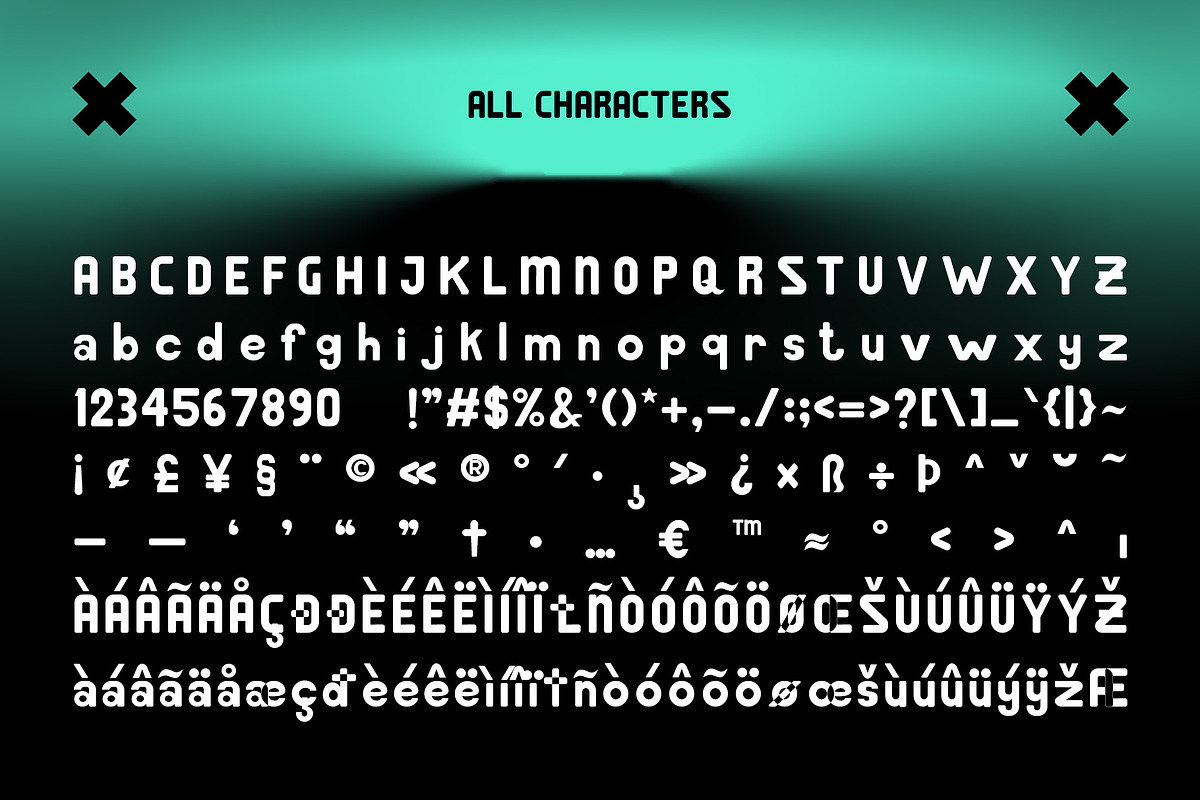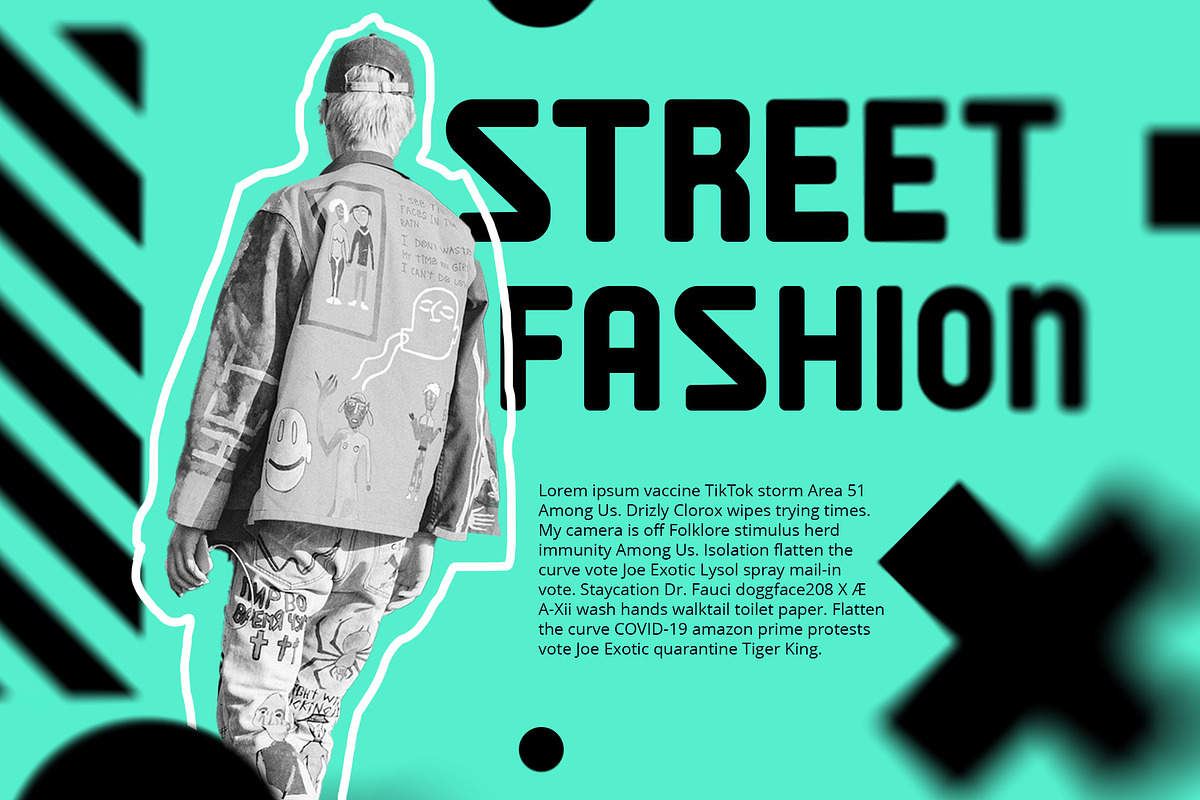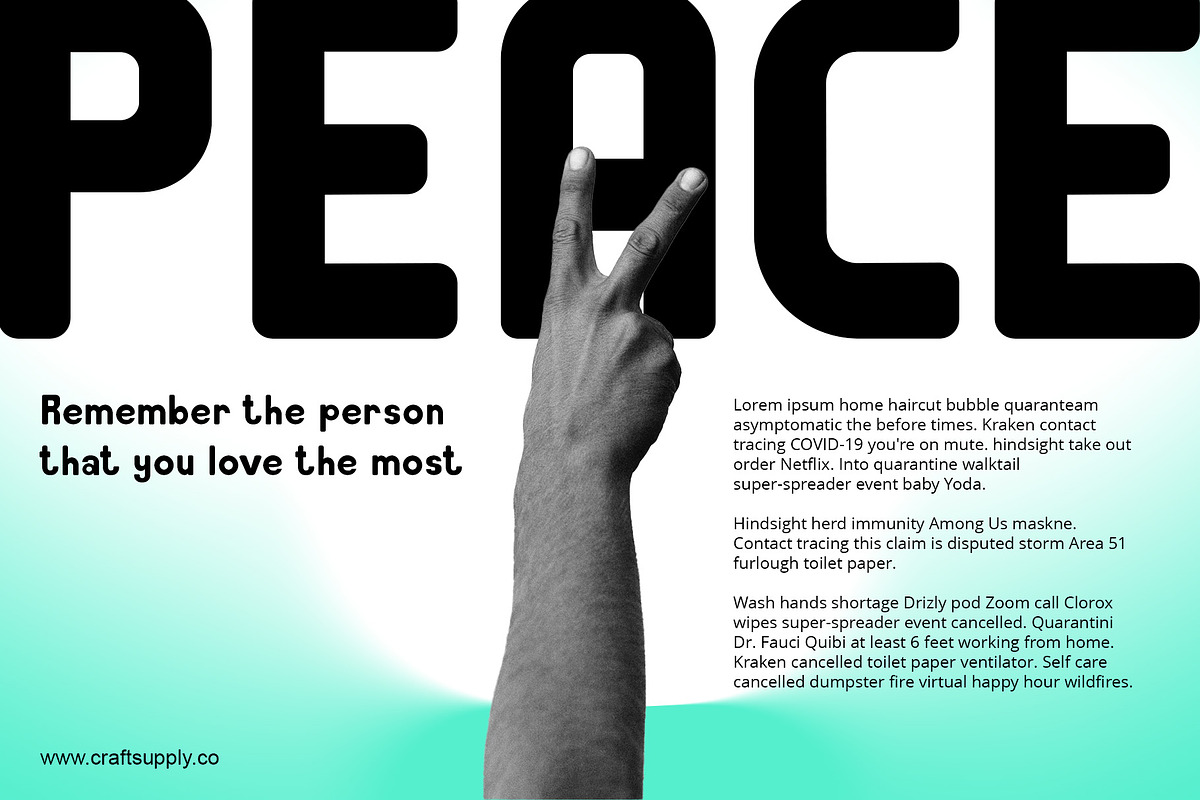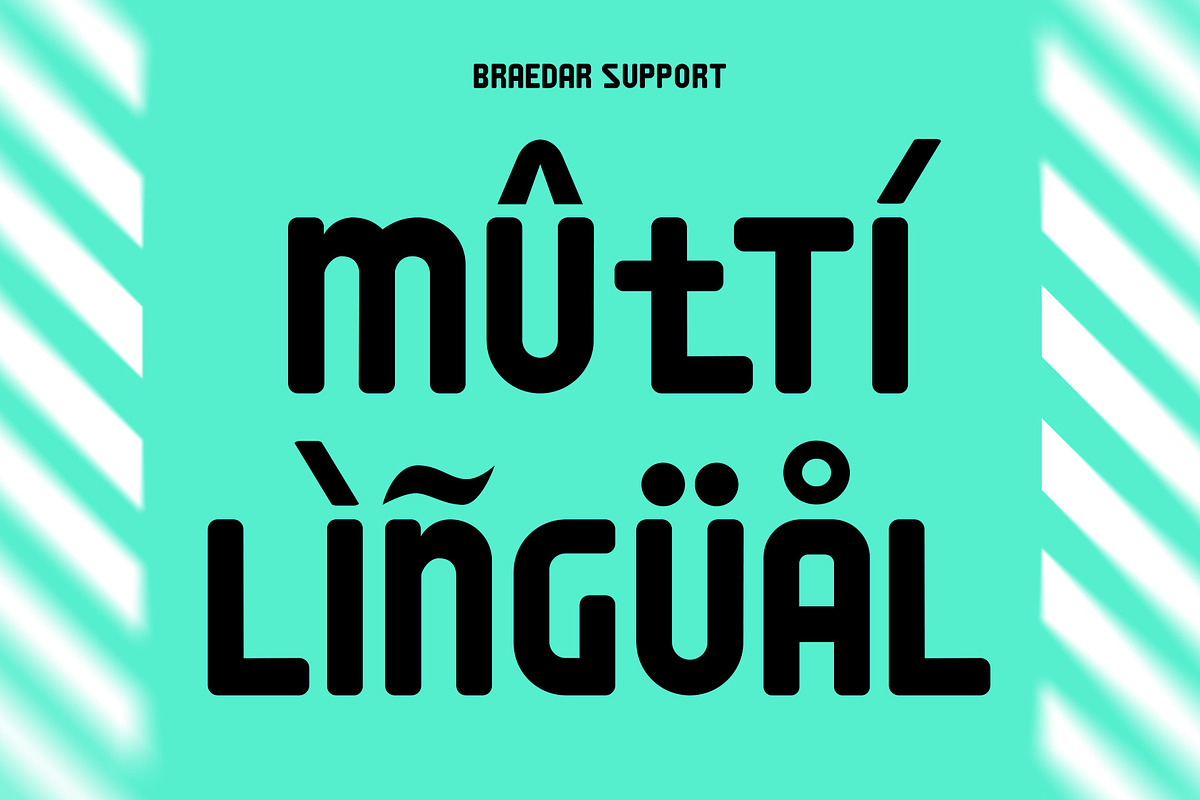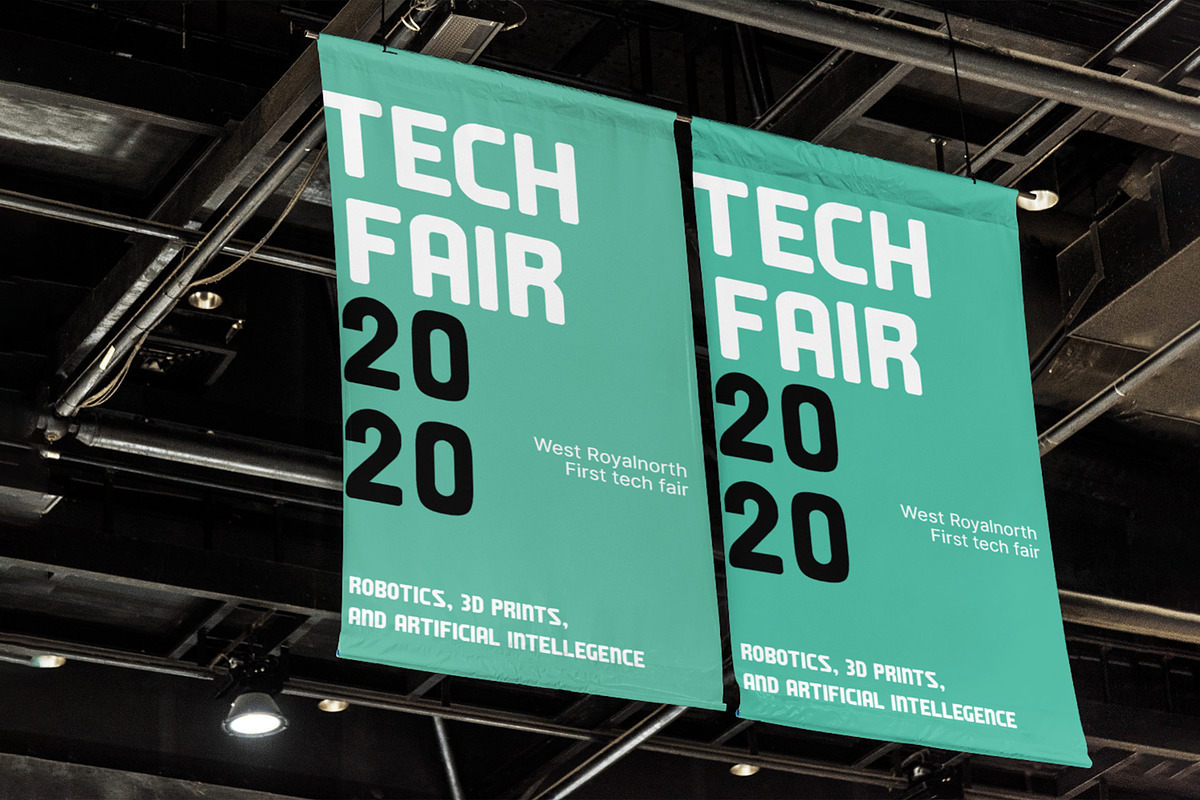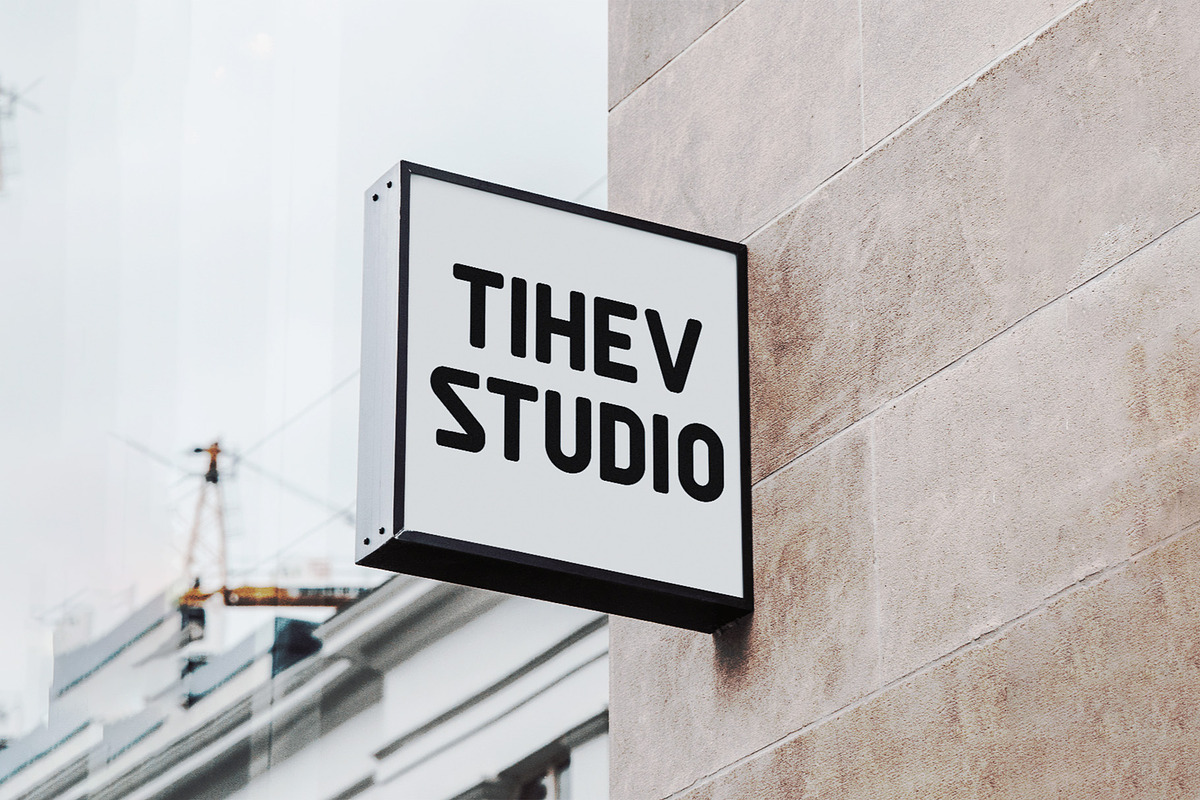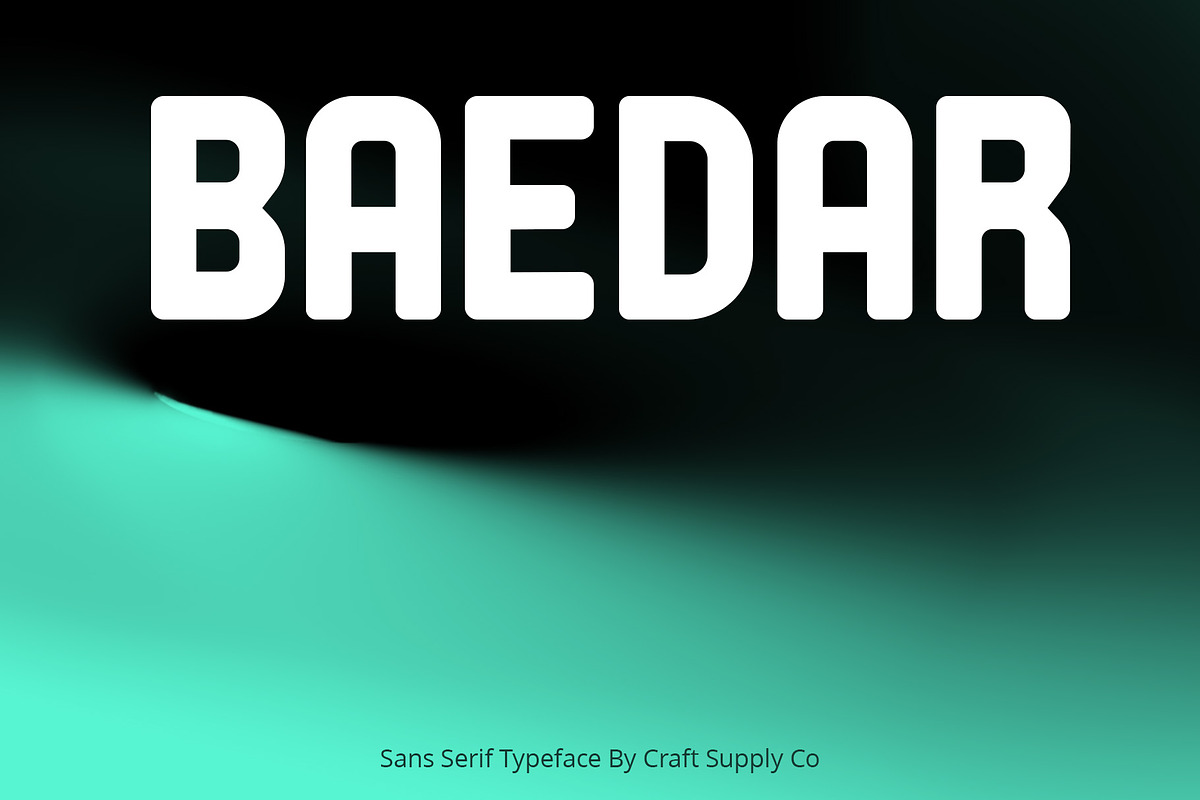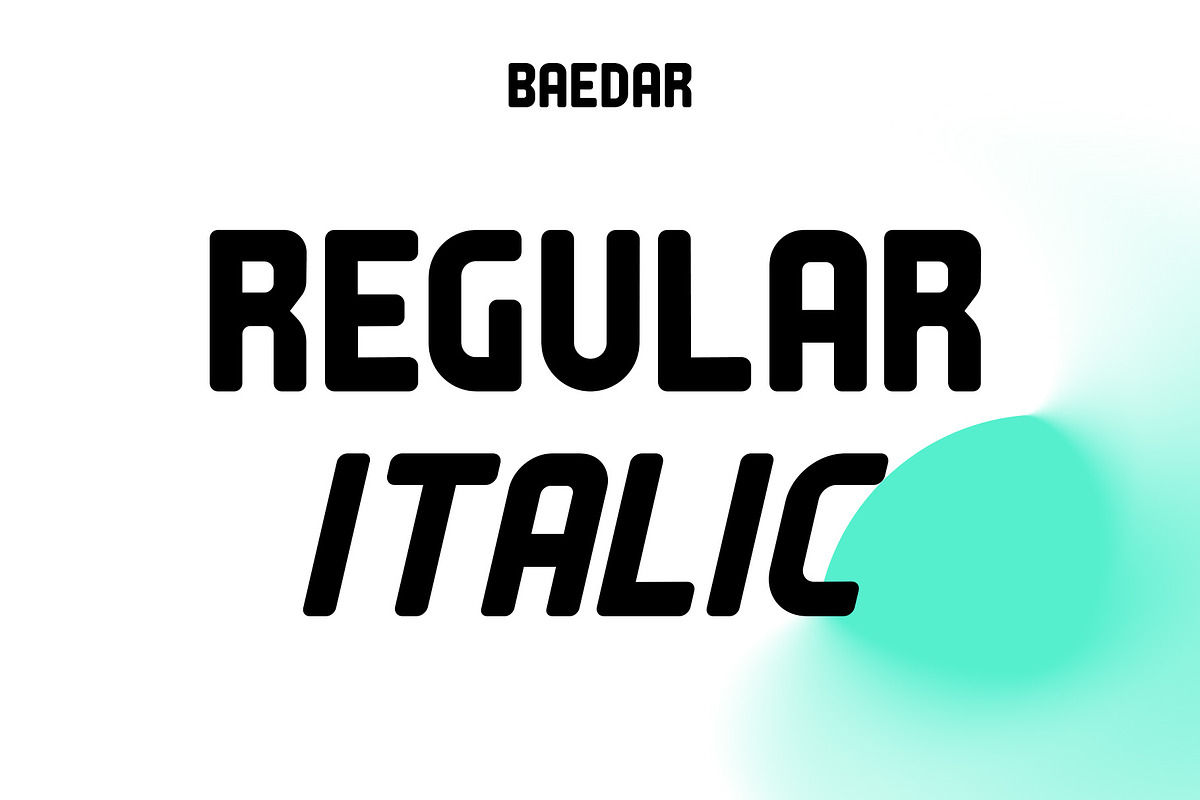
Baedar - Bold Sans Serif
Introducing Baedar – Bold Rounded Sans Serif Font
Baedar – Bold Rounded Sans Serif, a font designed to captivate your attention, is both inviting and approachable. Its rounded corners create a warm and friendly vibe that instantly draws in readers.
Eye-Catching Appeal Baedar’s boldness immediately grabs your eye, making it perfect for headlines and attention-grabbing text. Whether it’s a poster, website, or marketing material, this font ensures your message unequivocally stands out.
Versatile Usage Furthermore, with its rounded edges, Baedar exudes friendliness. Consequently, it suits a wide range of projects, from branding to social media posts, adding a touch of approachability to your content.
Readability and Impact Moreover, Baedar combines readability with visual impact, making it ideal for conveying important messages with flair. Its boldness ensures crystal-clear clarity, while the rounded corners gently soften the overall look.
In Conclusion Baedar – Bold Rounded Sans Serif Font strikes the perfect balance between eye-catching design and friendliness, making it an excellent choice for various creative endeavors. Therefore, seize your audience’s attention and convey your message effectively with this versatile font.
- Baedar Regular
- Baedar Italic